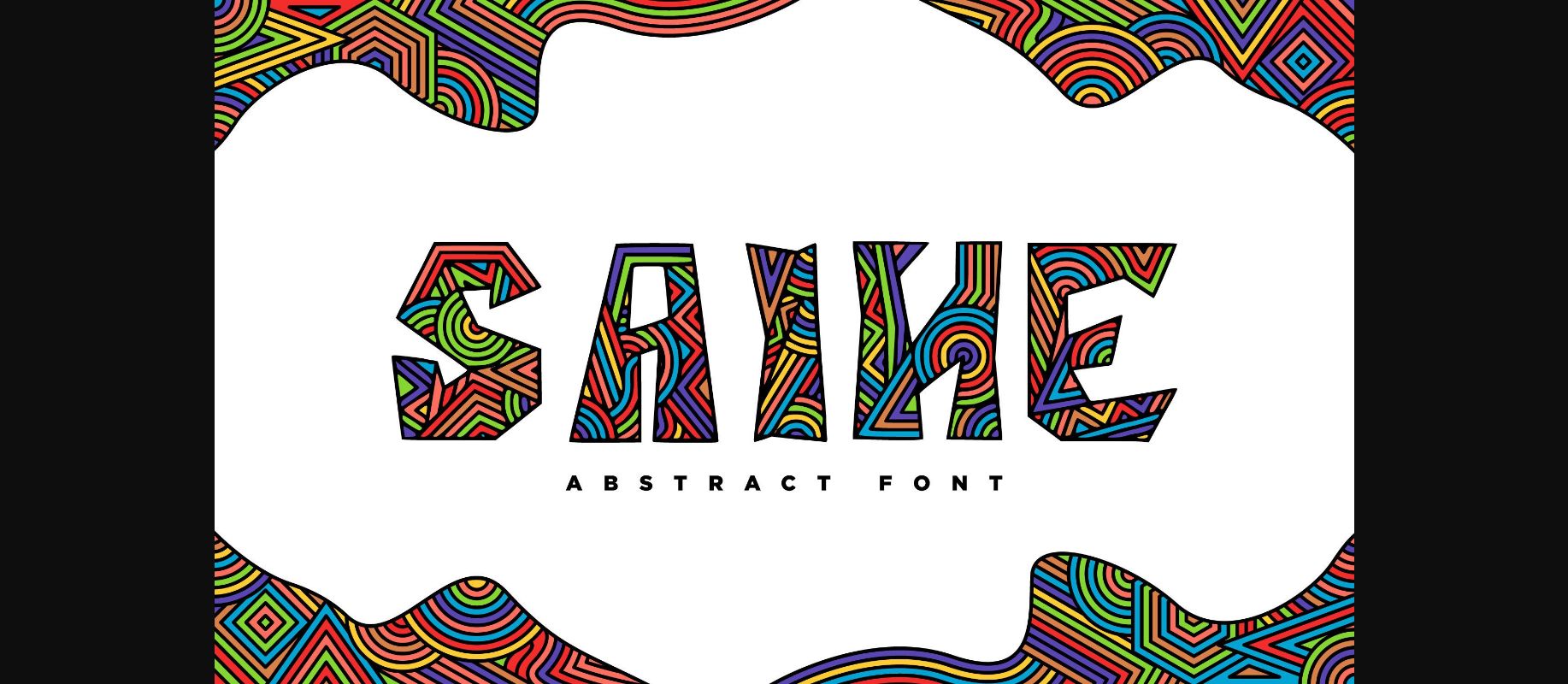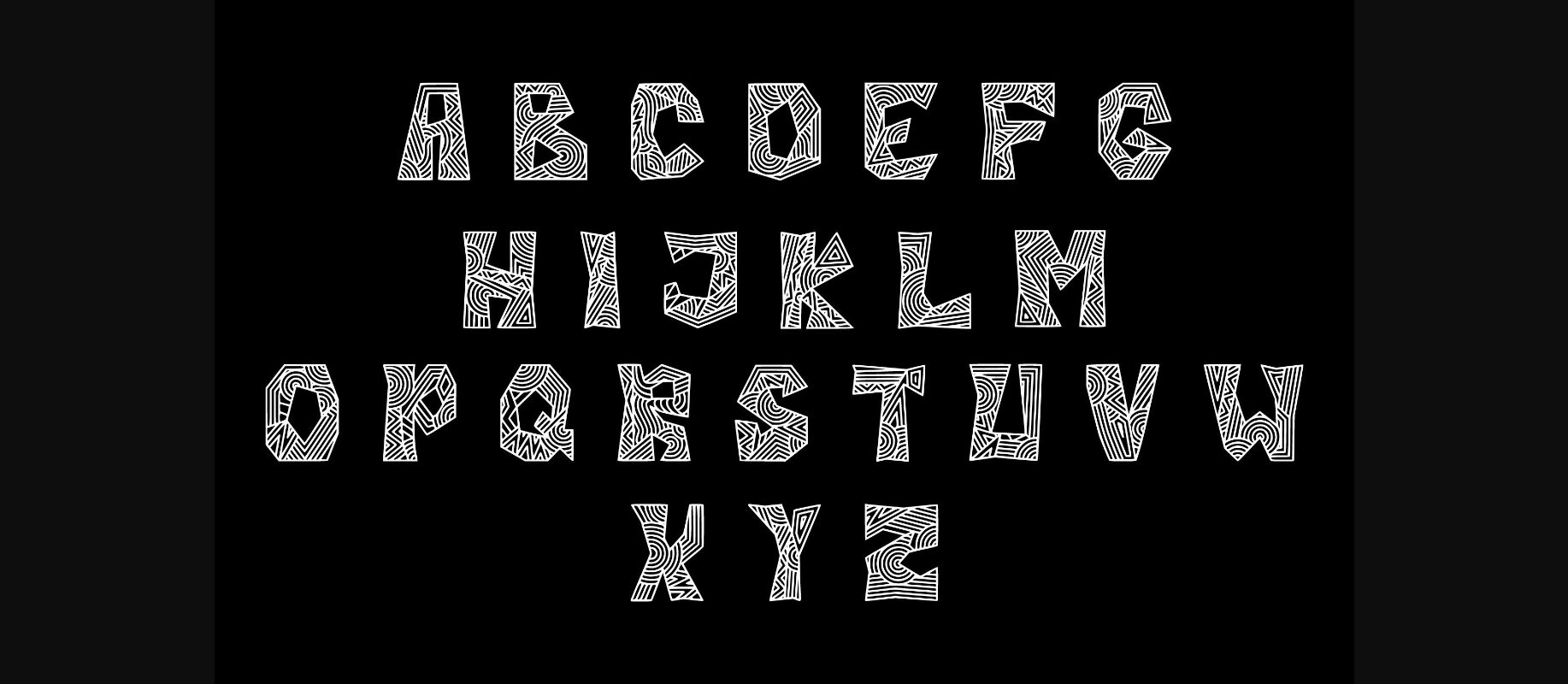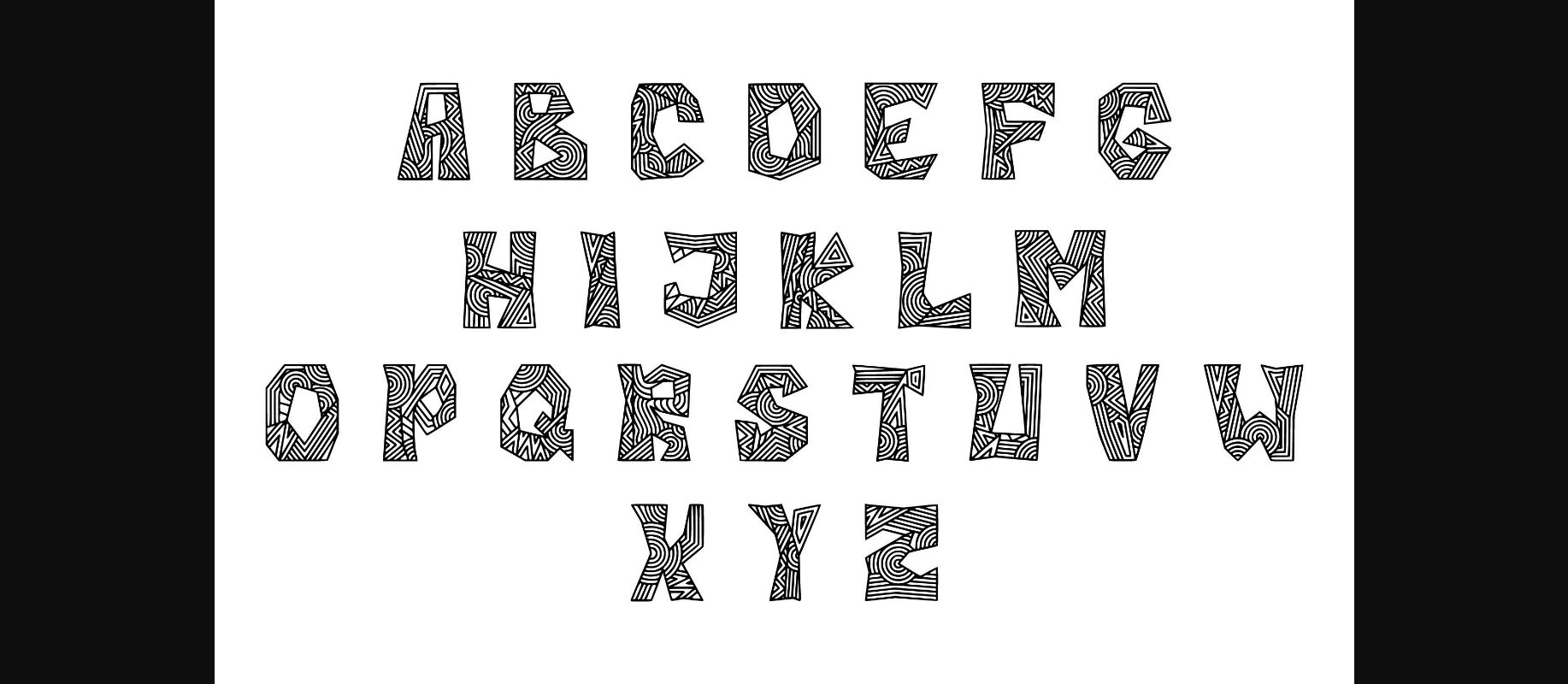
Saine Font
About Saine Font
Saine is a fun and unique all-caps decorative font featuring lovely, abstract motifs. This creative font is perfect for all your crafty ideas and will instantly add an artistic accent to any creation.